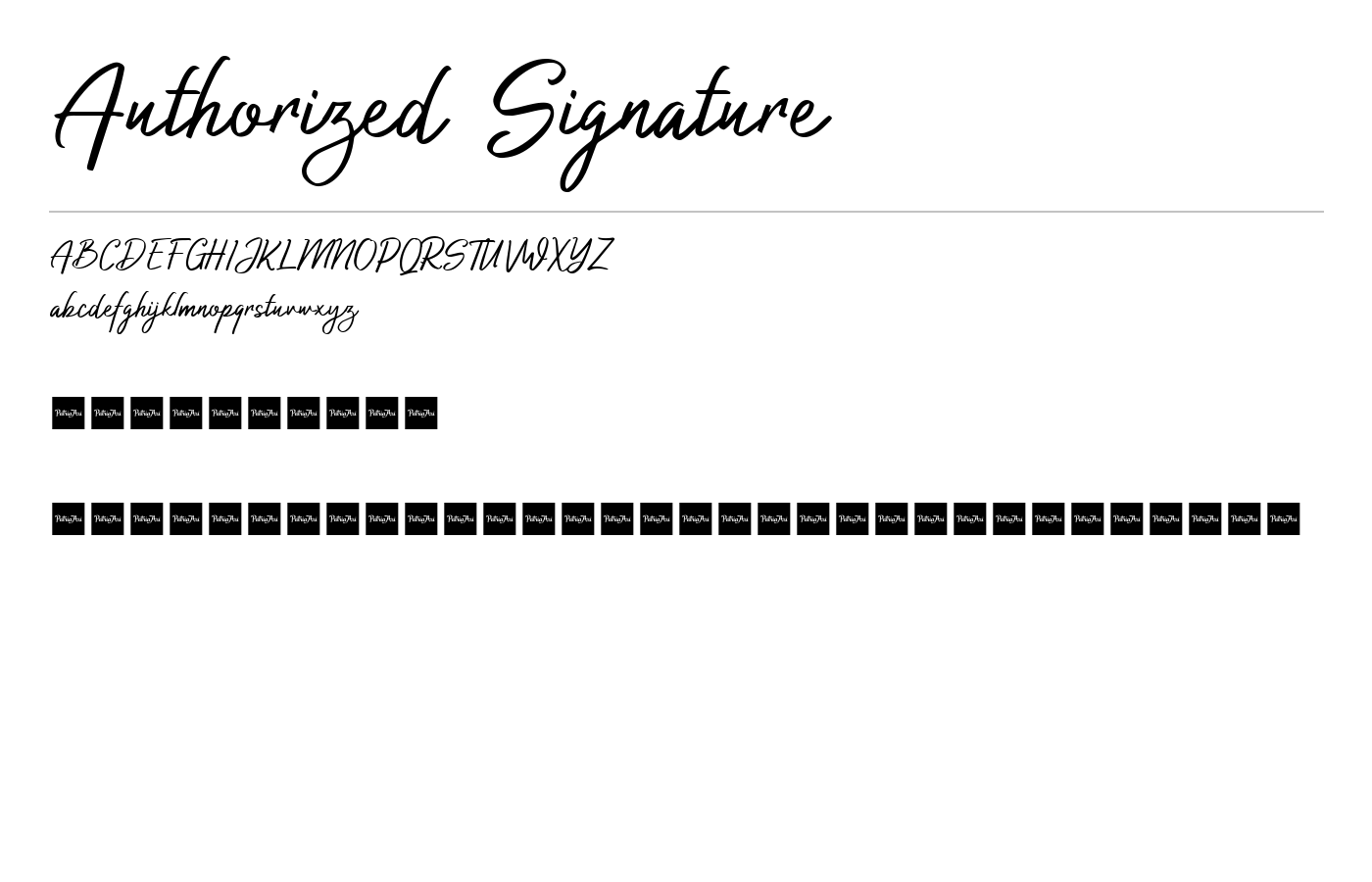
Authorized Signature is a sleek and elegant script font that mimics natural handwritten signatures with smooth, flowing strokes and a light to regular weight. Its delicate, slightly slanted letterforms create a personal and refined feel, making it ideal for branding, invitations, and any design that seeks a sophisticated yet approachable touch. This font works especially well in luxury, fashion, and editorial contexts where a stylish and authentic handwritten look is desired.
Authorized Signature Font
About Authorized Signature Font